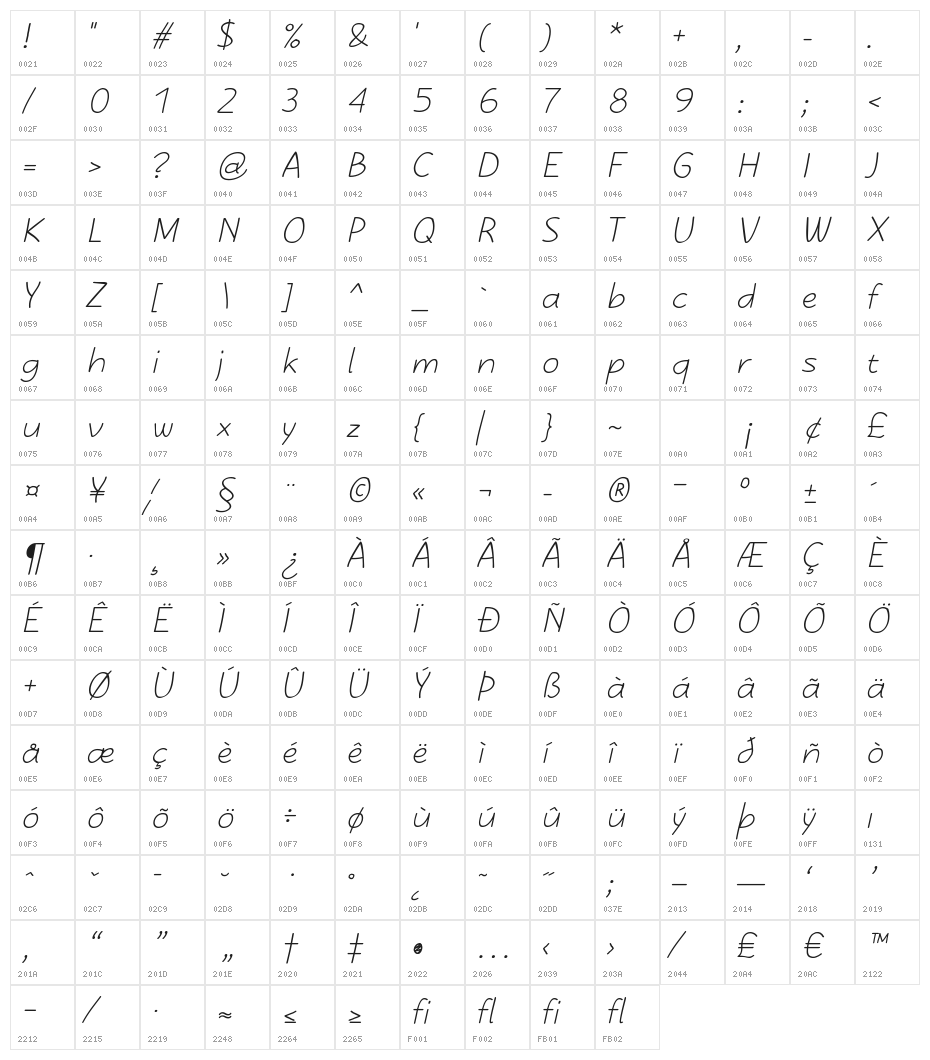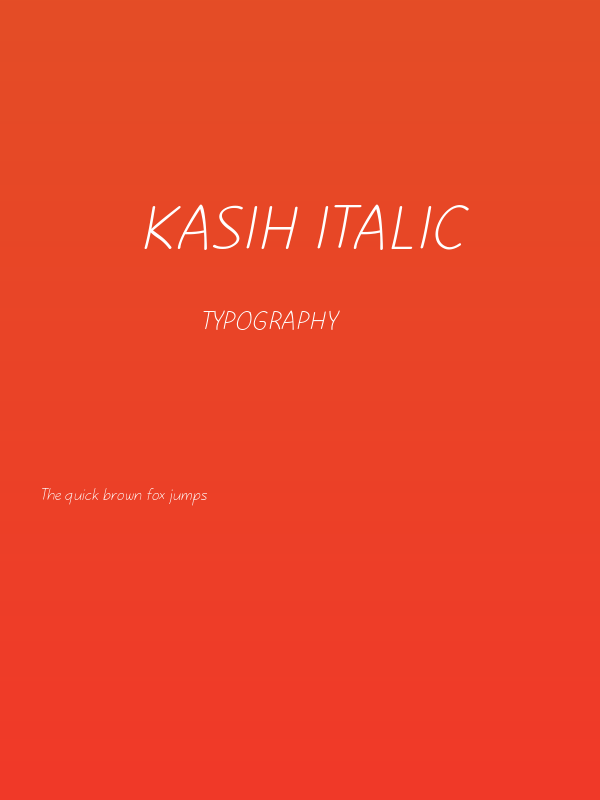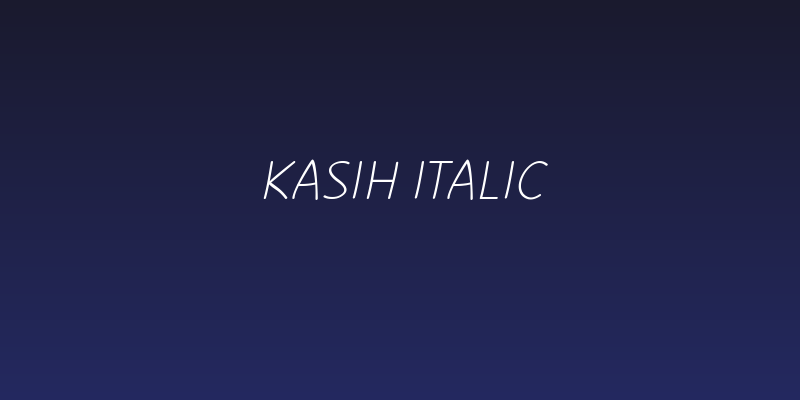
Kasih Italic Font
Kasih Italic Description
This font features a sleek, italicized design with a handwritten feel. The letters are slightly slanted, giving a sense of movement and elegance. The strokes are consistent and smooth, with a medium contrast between thick and thin lines. The characters are well-spaced, providing a clean and readable appearance. The numerals and special characters maintain the same fluid style, ensuring uniformity across all text elements. This font is versatile, suitable for both digital and print media, and can add a touch of sophistication to any project.
| Use Case | Logos, Invitations, Social Media Graphics |
| Proposed Projects | Ideal for wedding invitations, personal branding, elegant logos, and stylish social media graphics. |